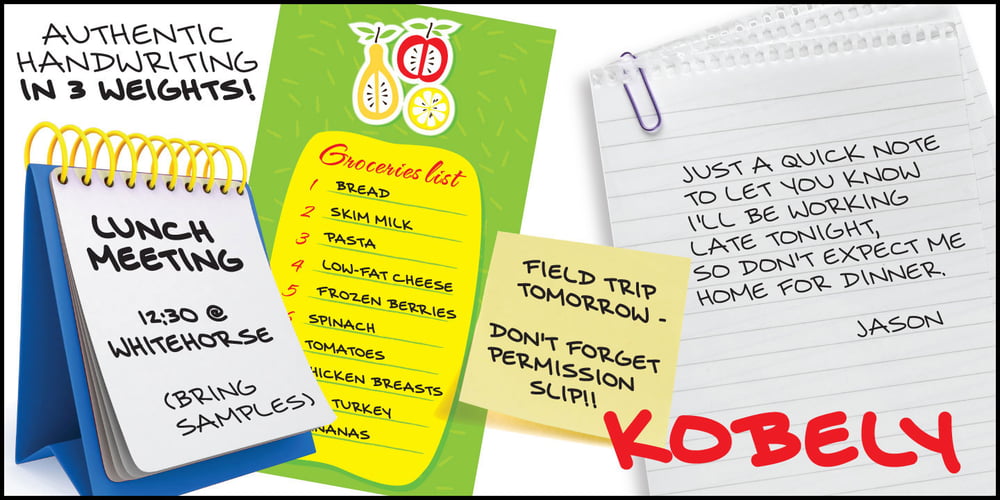
Kobely Font Family was designed by Dawn Lewandowski and published by Partnrz. Kobely contains 3 styles and family package options. Kobely is a reproduction of a local broadcaster’s real handwriting. My daughter thought her boss’s handwriting was so neat and uniform, it would make a great font and asked if I would be willing to create it. I agreed. She had him write out all the basic characters, which he gladly did with both a standard ink pen and a Sharpie¨ marker. I then turned it into a three weight family, perfect for use on post-it notes, shopping and to-do lists – anywhere you need the natural feel of real handwriting. I created it in various weights to spare you from adding a stroke to make it bolder. Adding a stroke can often compromise the small details of a font. Kobely is designed to be readable in even the boldest weight!